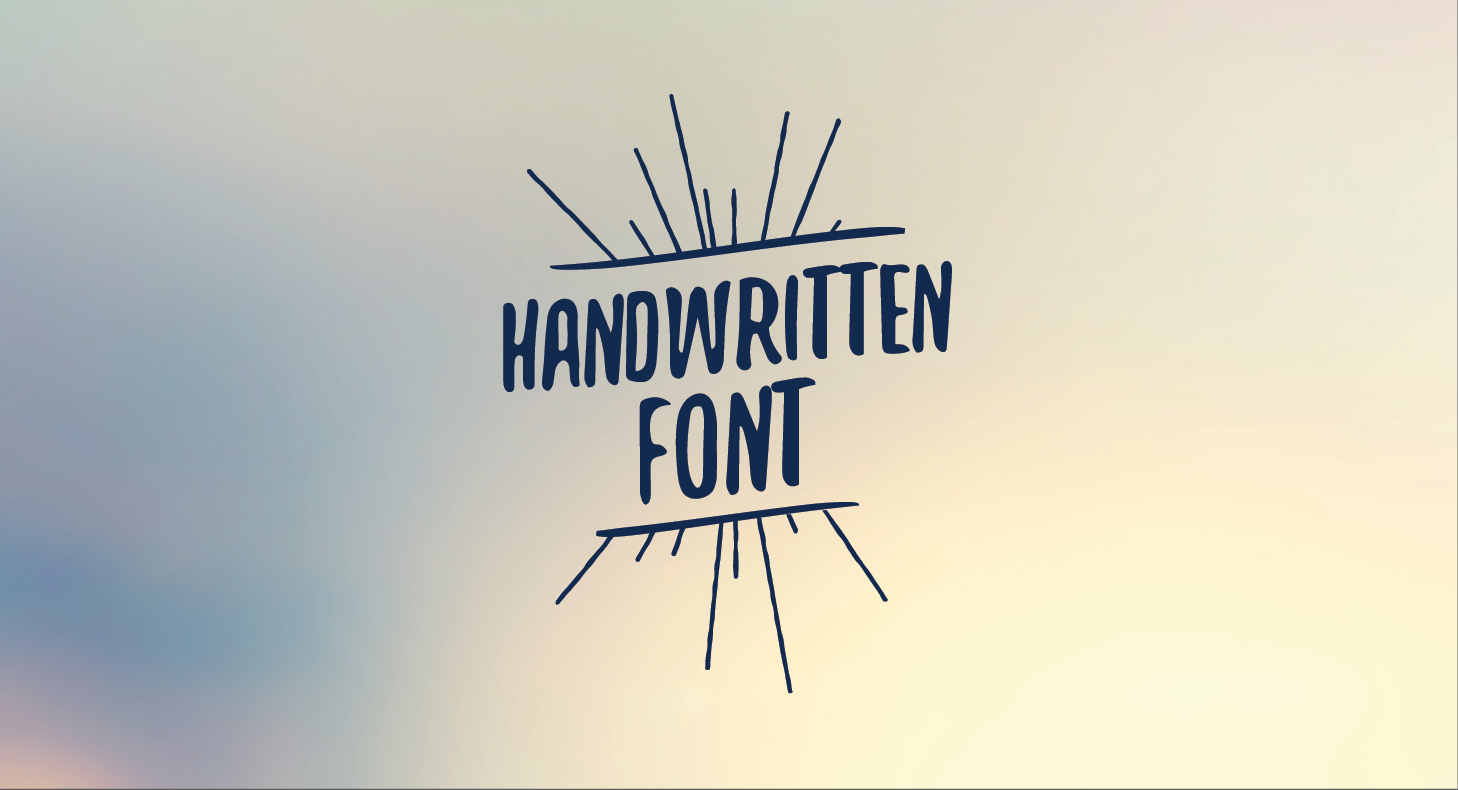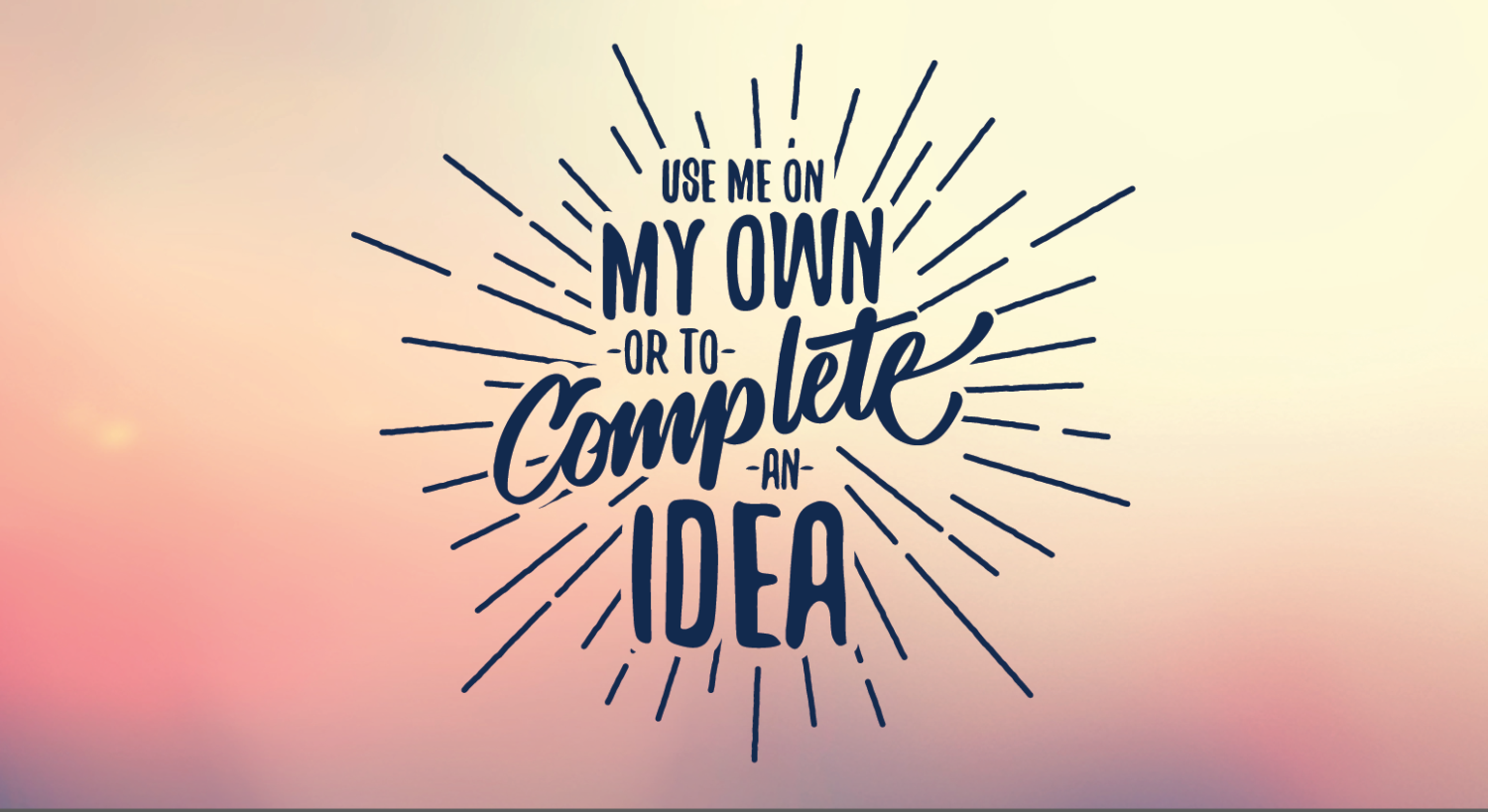
Yeah Papa Free Font
Yeah Papa Free Font is a perfectly imperfect font that looks like natural hand-writing. Its shapes are clearly natural to feature the feeling of fun and happiness. This awesome font is suitable for you to use it on your projects such as gift cards, invitation, logo font, packaging, and more.